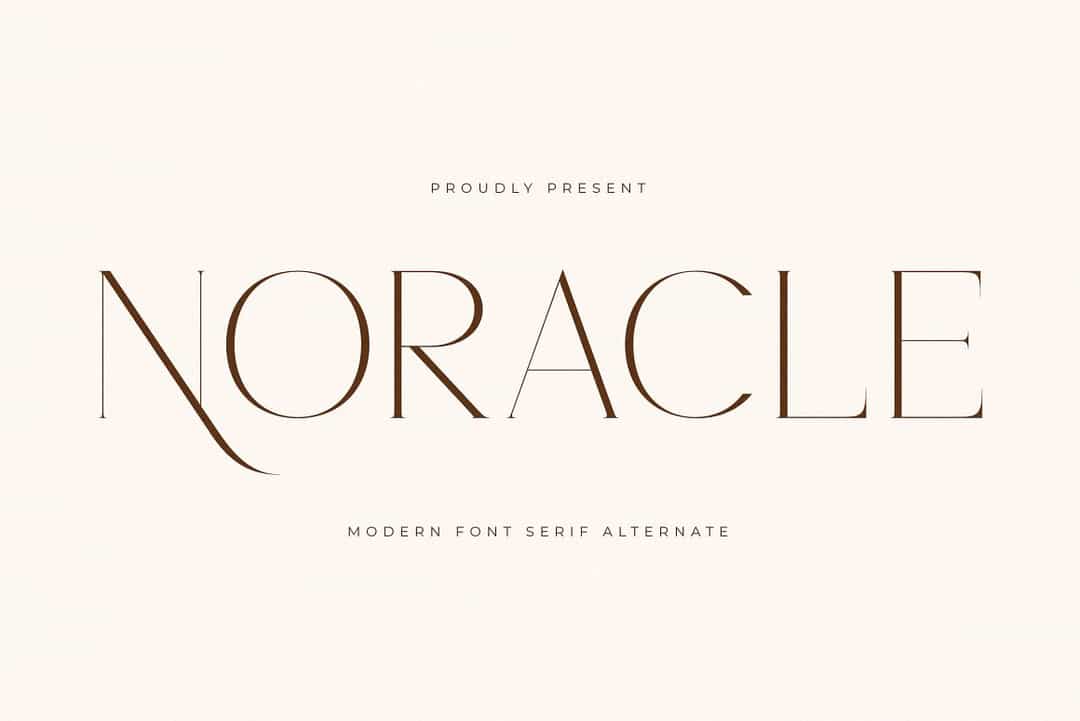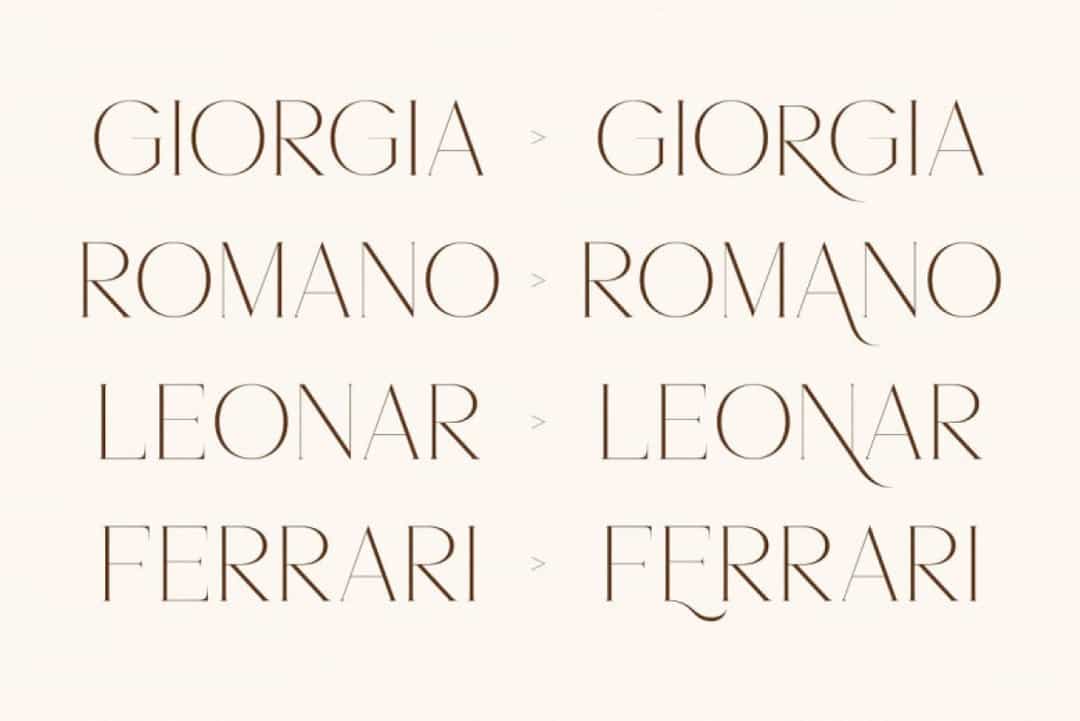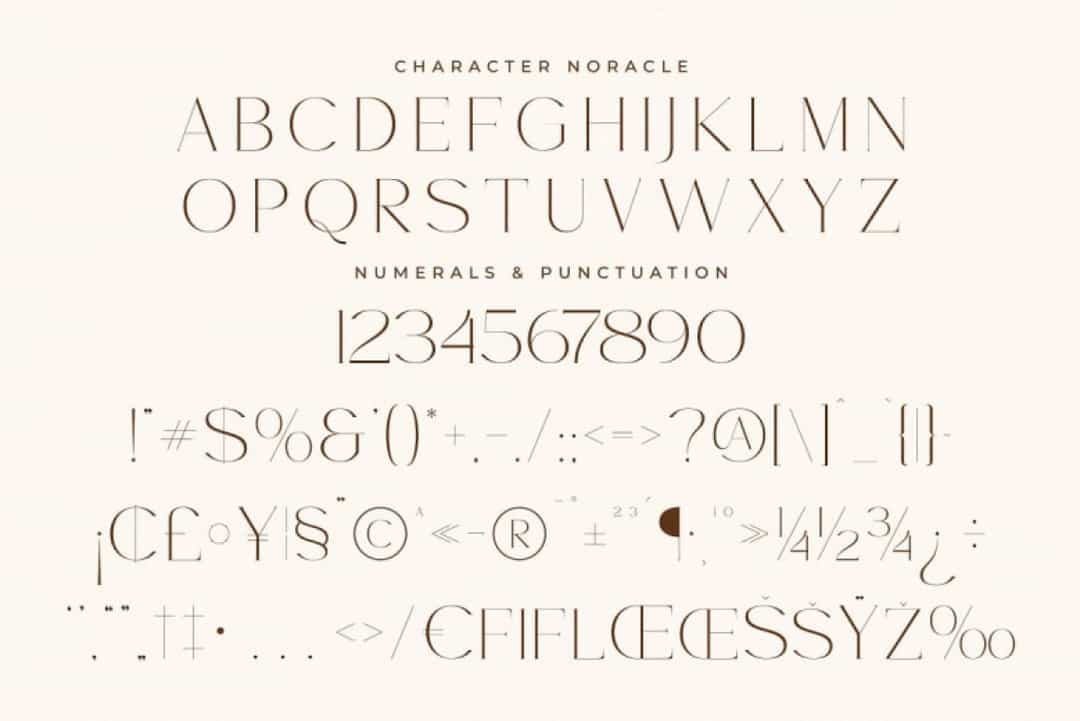
Noracle Font is an elegant and timeless serif typeface, ideal for creating timeless logos, movie/book name designs, fashion brand clothing designs, magazines lettering, quotes or many other creative projects. This font also makes great fashion brand clothing designs as it boasts its own individual character and distinctive style and modern appearance. This font can also help to add characterful quotes as well as many other uses!